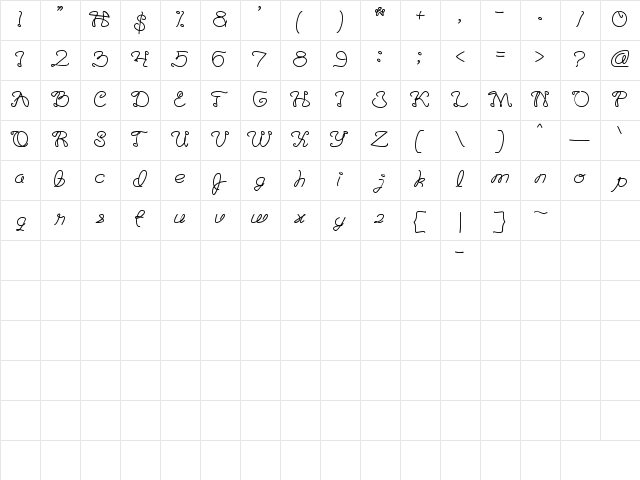
The Good Life Regular
Design Context for The Good Life Typeface
The Good Life is a composed and adaptable typeface that performs quietly and consistently across a wide range of design contexts.